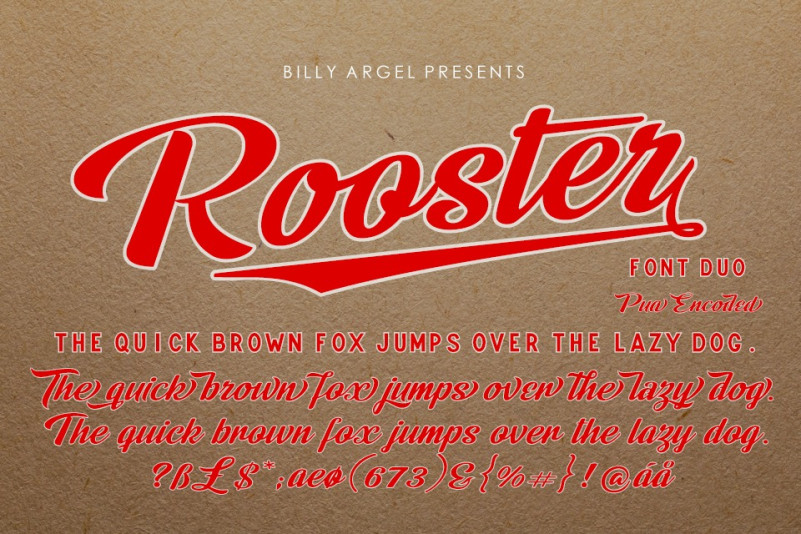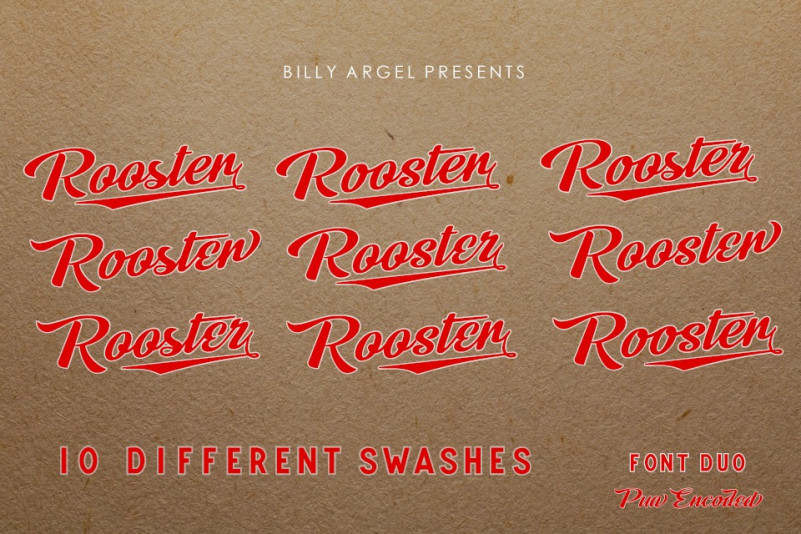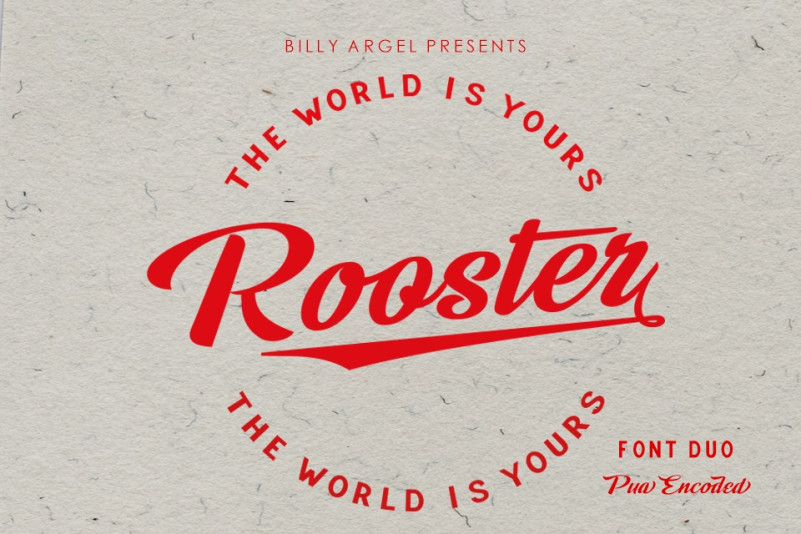
Rooster Font
Rooster Script Font, This font is perfect for stickers, retro projects, craft projects, shirts, svg designs, procreate designs, branding, blogs, logos, invitations and more!